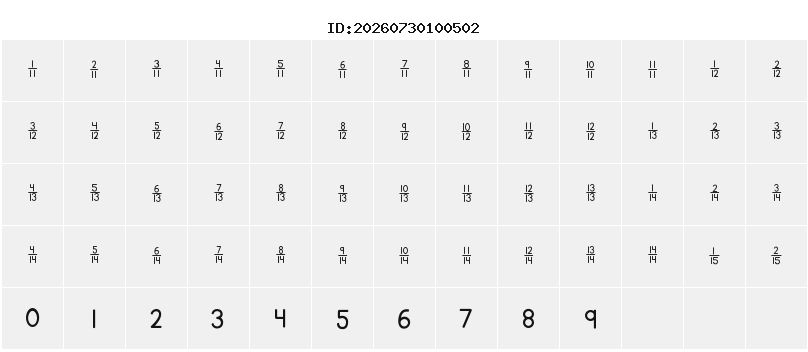
KG Traditional Fractions 2 Preview
• Font Name: KG Traditional Fractions 2
• Full Font Name: KG Traditional Fractions 2
• Designer: Kimberly Geswein
About KG Traditional Fractions 2.ttf
KG Traditional Fractions 2.ttf is a modern, elegant sans-serif font designed for ultimate readability and visual harmony. Perfect for branding, headlines, web design, and print materials.